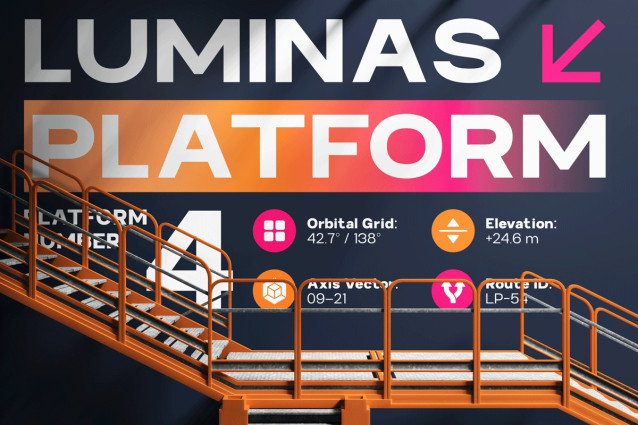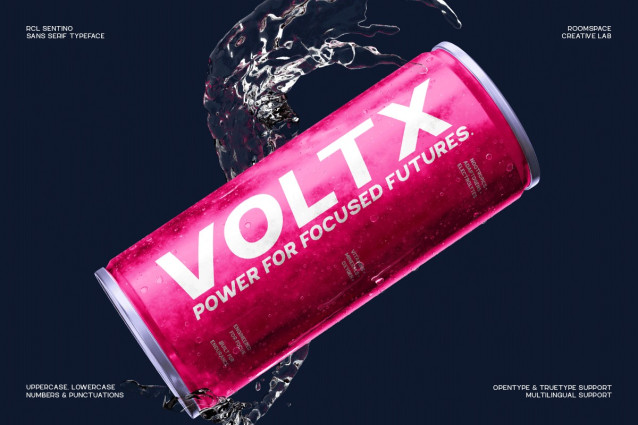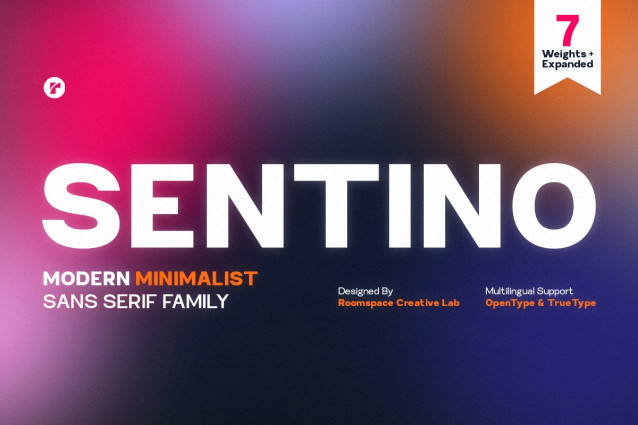
RCL Sentino Exp Font
RCL Sentino Exp Font is a modern minimalist sans-serif font family designed for clarity, balance, and contemporary aesthetics. Built with clean proportions and neutral shapes, Sentino delivers excellent readability while maintaining a refined visual presence. With 7 weights and expanded styles, Sentino is perfect for logos, branding systems, web interfaces, editorial layouts, and professional digital products.